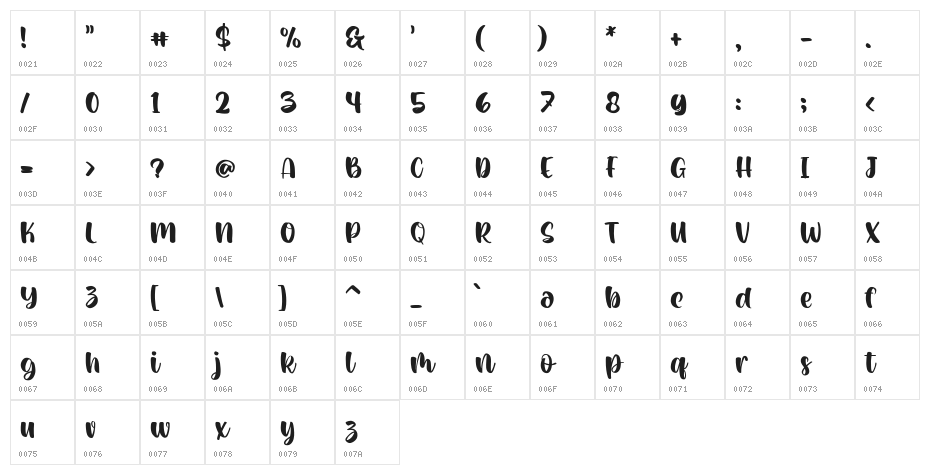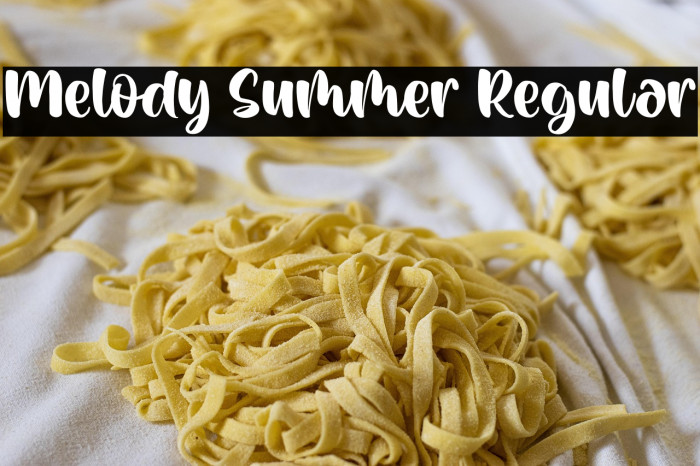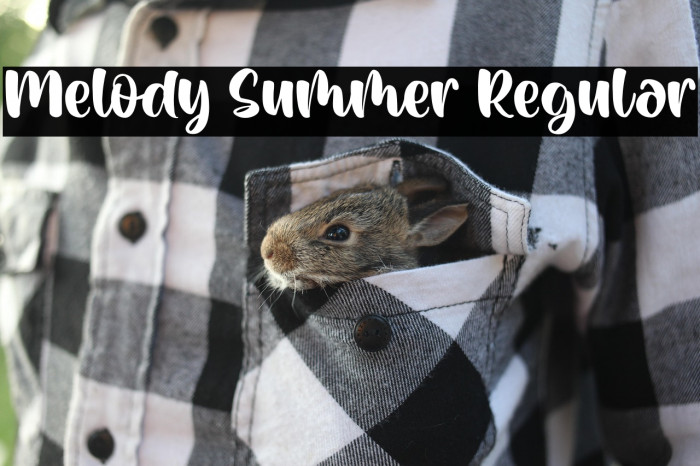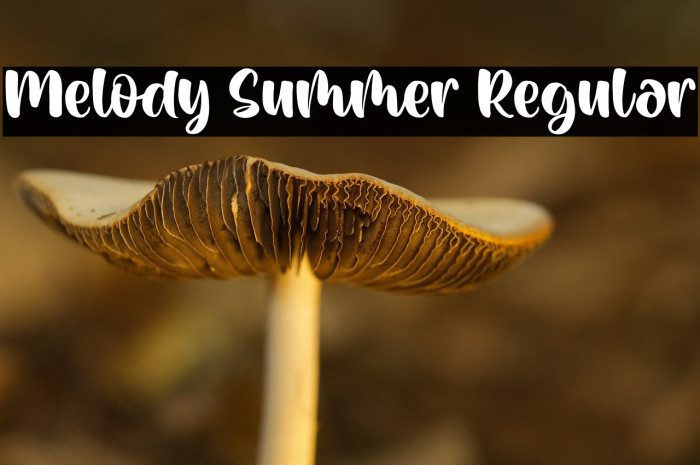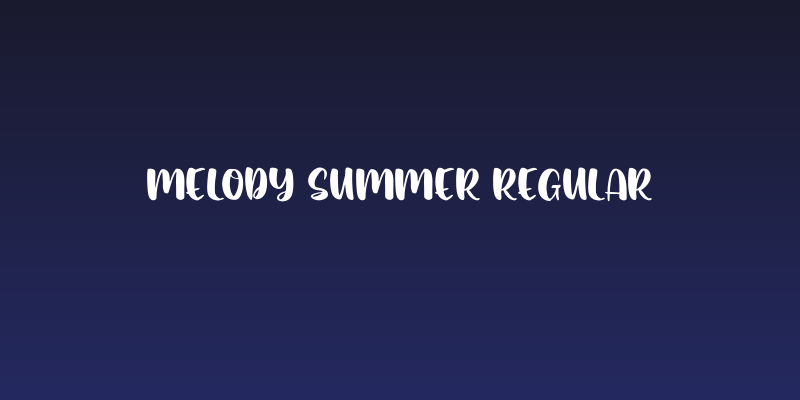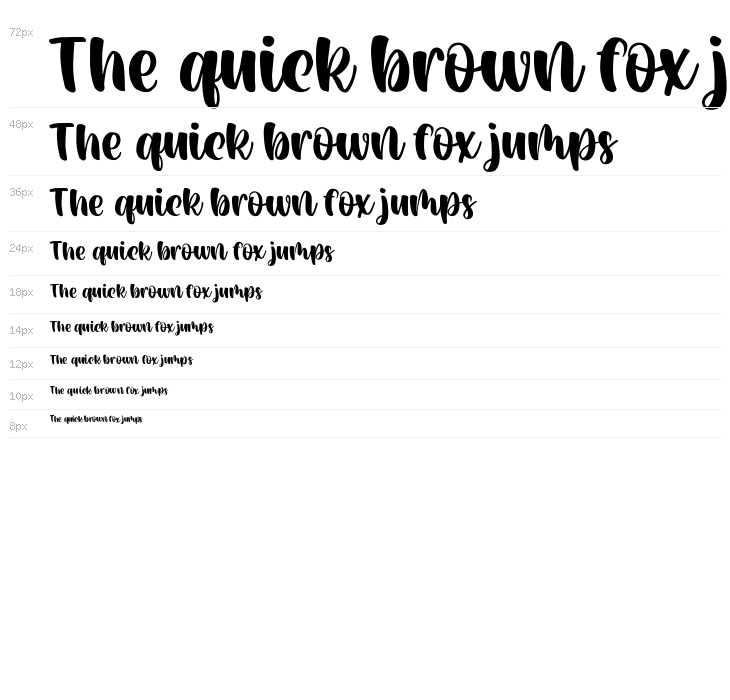
Melody Summer Regular Font
Melody Summer Regular Description
This font features a playful and bold script style with a handwritten feel. The letters are characterized by their thick, flowing strokes and rounded edges, giving it a friendly and approachable appearance. The uppercase letters maintain a consistent height, while the lowercase letters exhibit a slight slant, adding to the casual aesthetic. The numerals and special characters are equally bold and maintain the same playful style, ensuring consistency across all elements. This font is ideal for projects that require a personal touch, such as invitations, greeting cards, or branding for creative businesses.
| Proposed Projects | Ideal for invitations, greeting cards, and creative branding. |